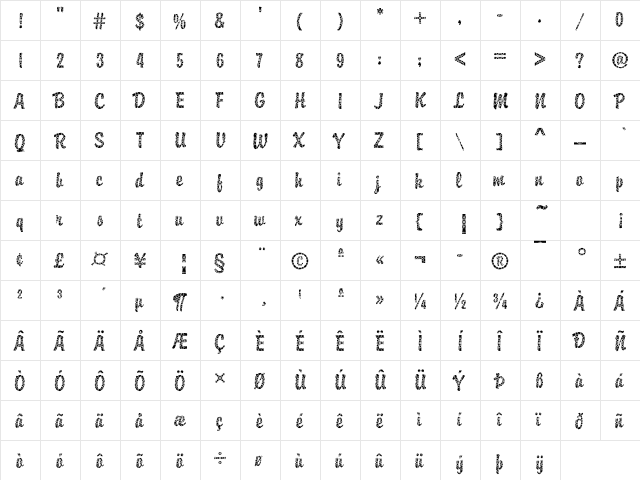
Brody30 Becker Regular Font Preview
Brody30 Becker Regular
Brody30 Becker Regular Font Details
Design Context for Brody30 Becker Typeface
Brody30 Becker is a composed and adaptable typeface that performs quietly and consistently across a wide range of design contexts.